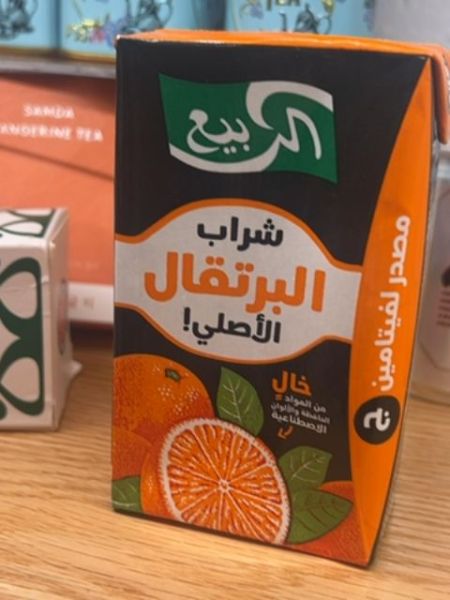
الربيع Orange Drink
A refreshing orange drink made from natural ingredients, catering to those seeking a pure and flavorful beverage.
The typography is bold and modern, using an Arabic script with a slight curve that gives it a friendly and accessible look. The font color contrasts well against the background, ensuring clarity and readability. The overall design harmonizes traditional aesthetics with contemporary style.
The packaging is a compact, rectangular carton with vibrant orange colors, reflecting the flavor of the product. It features an illustration of juicy oranges at the bottom, enhancing visual appeal and giving a hint of the product's fruit content.
- Contains natural ingredients.
- Rich in Vitamin C.
- Popular in Middle Eastern countries.